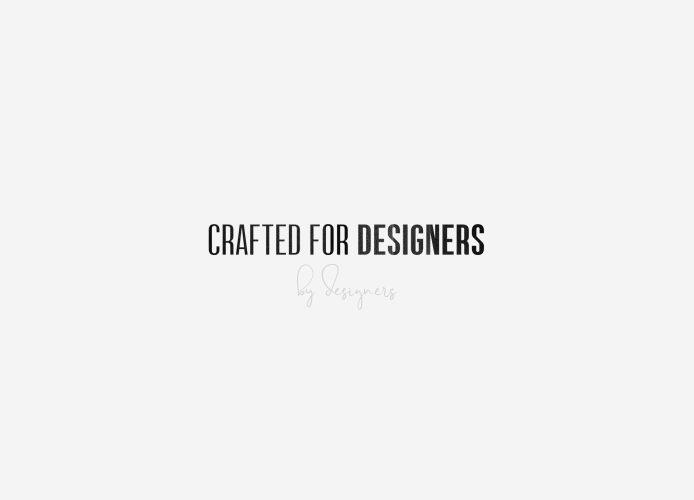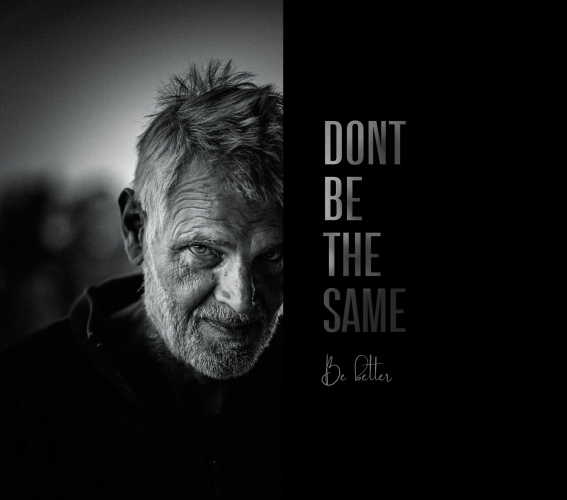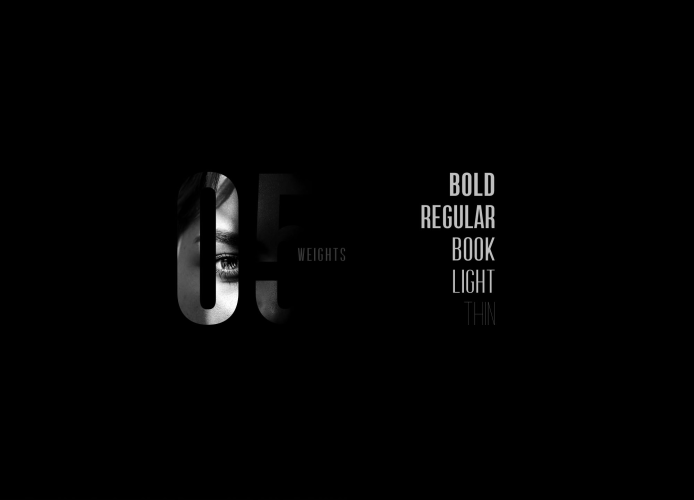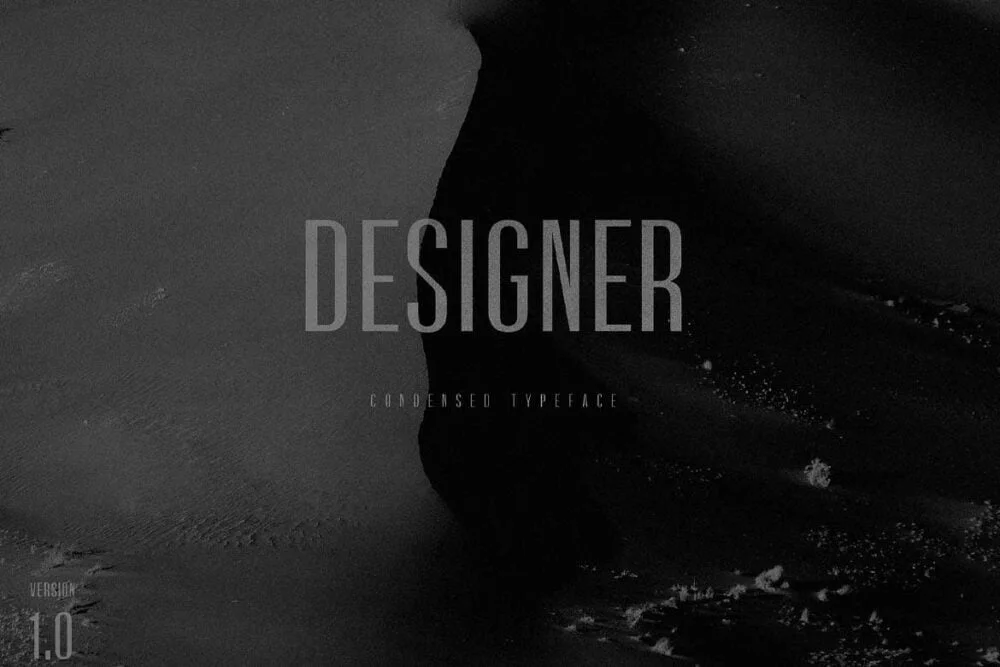
Designer Font
Designer Font is a sans serif font family which consist of 5 weights; thin, light, book, regular and bold. It is a condensed typeface with a special character and unique identity. The font works beautifully in branding, poster design, and packaging. It also pairs smoothly with many styles of other typefaces as you can examples above. You can mix it with serif, script, or even comic fonts.
Where Designer Font works best
Designer Font keeps its shape at 14 and 16 pixels, which is where interface text actually lives. Numbers and capitals stay distinguishable in tables.
Presentations are read at a distance; a clean sans with a strong bold is the safest hierarchy you can build in a hurry.
Simple letterforms survive angles, glare and movement, so Designer Font suits door signs, menus boards and exhibition panels.
What kind of work does Designer Font suit?
It sits in the Sans Serif Fonts group and reads as bold, branding, condensed, kids. That makes it a candidate wherever those qualities help: headings, packaging, social graphics and brand work. Set it at the size you plan to use before deciding.